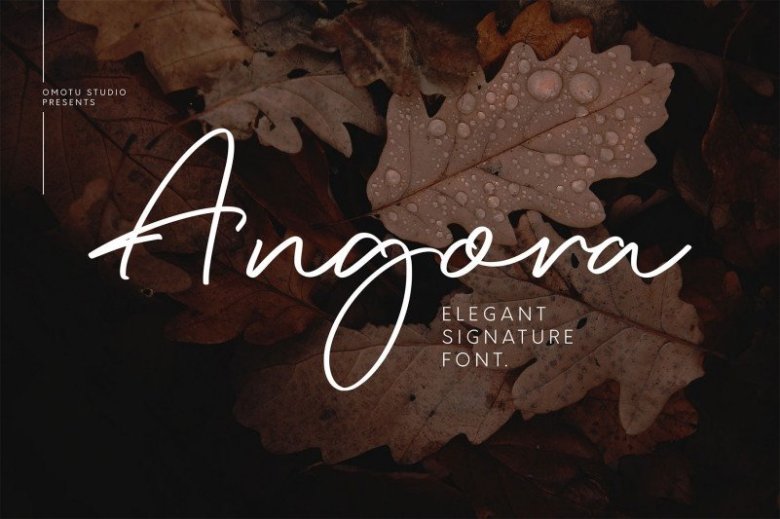
Angora Font
Angora Handwritten Font is a sophisticated handwritten signature-style script with elegant shapes in every glyphs. A handwrittent signature font manufactured by Omotu. Angora font is suitable for branding, logotype, apparel, T-shirt, Hoodie, product packaging, quotes, flyer, poster, advertising, etc.